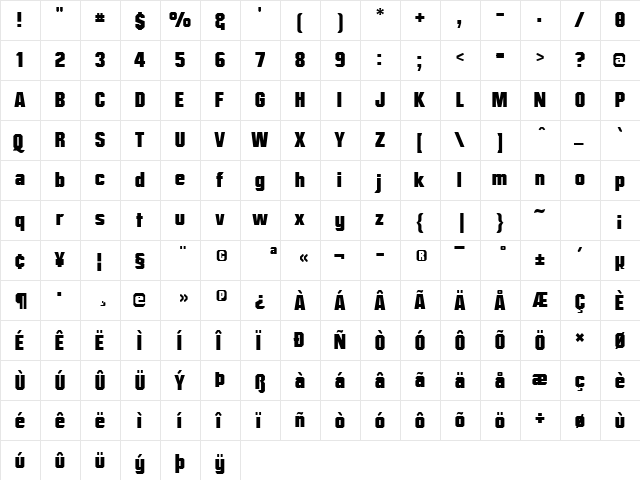
Mister Belvedere Regular
Design Context for Mister Belvedere Typeface
Mister Belvedere offers clean, dependable letterforms without strong stylistic allegiance, making it a practical choice for designers who need flexibility.